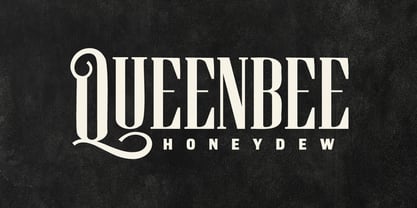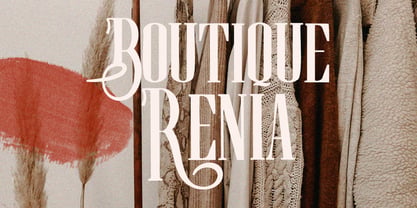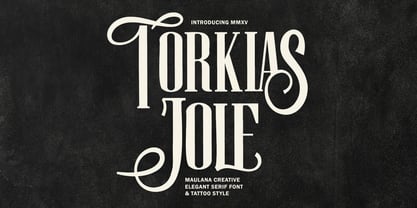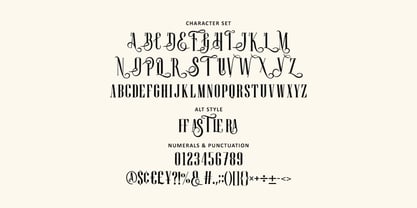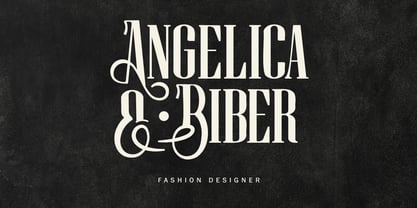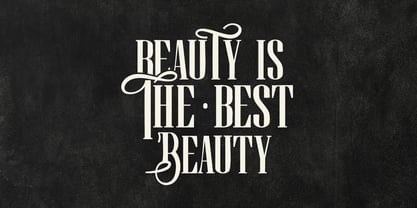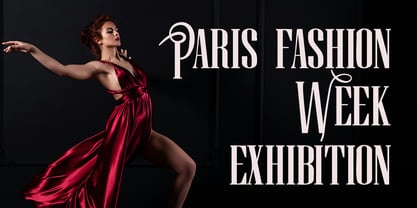
MC Torkias Jole
by Maulana Creative
The MC Torkias Jole Font Family was designed by Gilang Maulana and published by Maulana Creative. MC Torkias Jole contains 1 styles. More about this family
Introducing Torkias Jole, a stunning and versatile serif font that brings a touch of vintage elegance and dramatic flair to your designs. Inspired by the classic beauty of old world typography and the bold, flowing lines of tattoo lettering, Torkias Jole is perfect for projects that demand attention and sophistication. Its high contrast, tall letterforms, and decorative swashes make it an exceptional choice for branding, fashion, editorial design, and more. Key Features: - Dramatic Contrast: Tall, commanding uppercase characters mixed with high-contrast thick and thin strokes. - Unique Swashes & Alternates: The font includes beautiful stylistic alternates and swashes, allowing you to create custom, luxurious logotypes and striking headlines. - Versatility: Use the clean, regular uppercase for a modern, fashion-forward look, or incorporate the elaborate swashes for a rich, tattoo inspired vintage aesthetic. - Multipurpose Use: Ideal for logos, branding, product, fashion campaigns, wedding invitations, and editorial headlines.
Designers: Gilang Maulana
Foundry: Maulana Creative